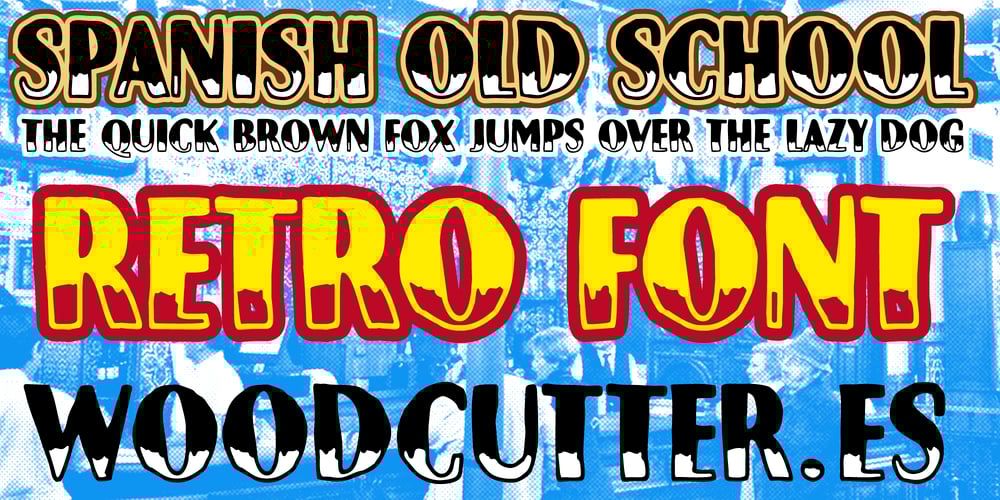
Spanish Old School Font Family was designed by Jordi Manero and published by Woodcutter. Spanish Old School contains 1 styles and family package options. “Spanish Old School” is an uppercase typeface that combines solid and hollow elements, creating a striking and nostalgic visual effect. With a retro appearance and a handmade touch, each letter is decorated with one solid half and the other hollow, providing a unique contrast. Perfect for projects aiming to evoke a classic feel with a Spanish twist, this font is ideal for titles, posters, and designs requiring a vintage and authentic vibe. It also includes accents, making it versatile for use in multiple languages.